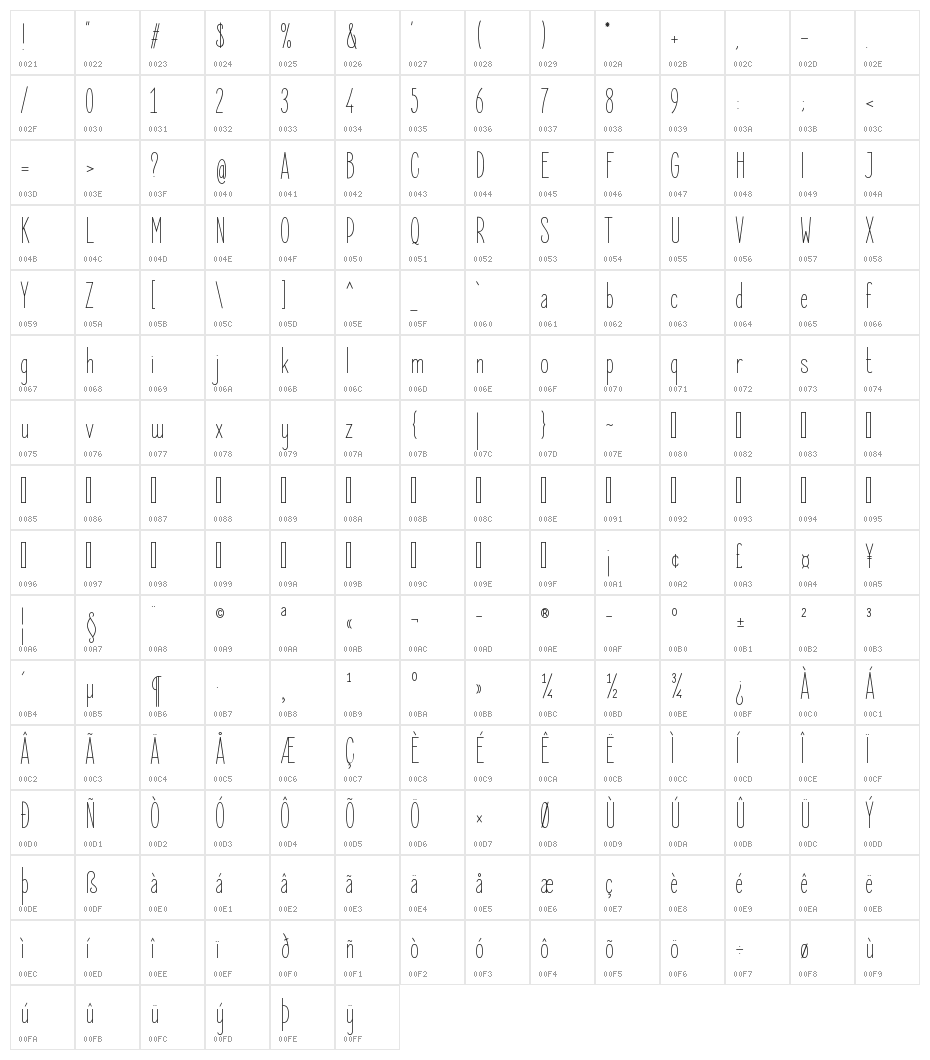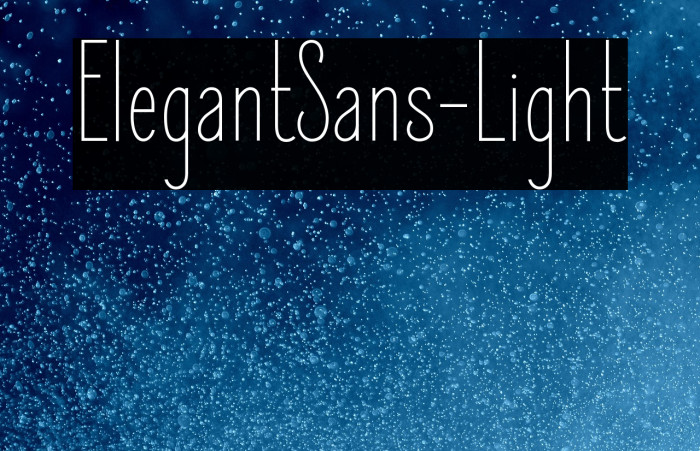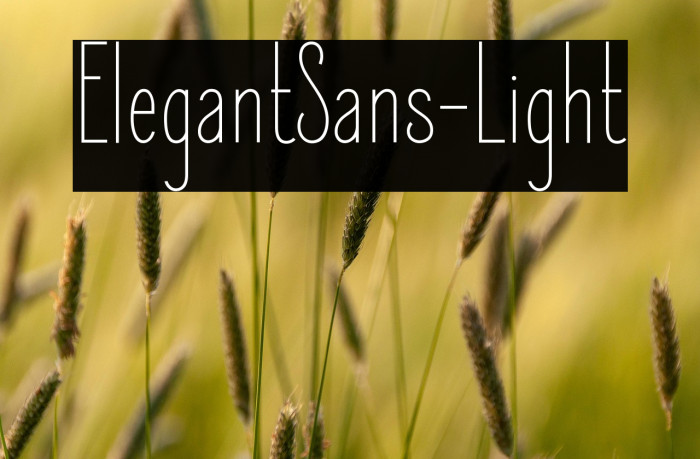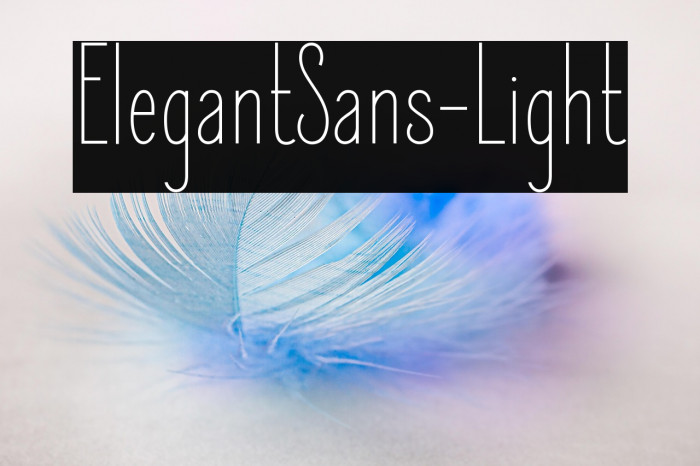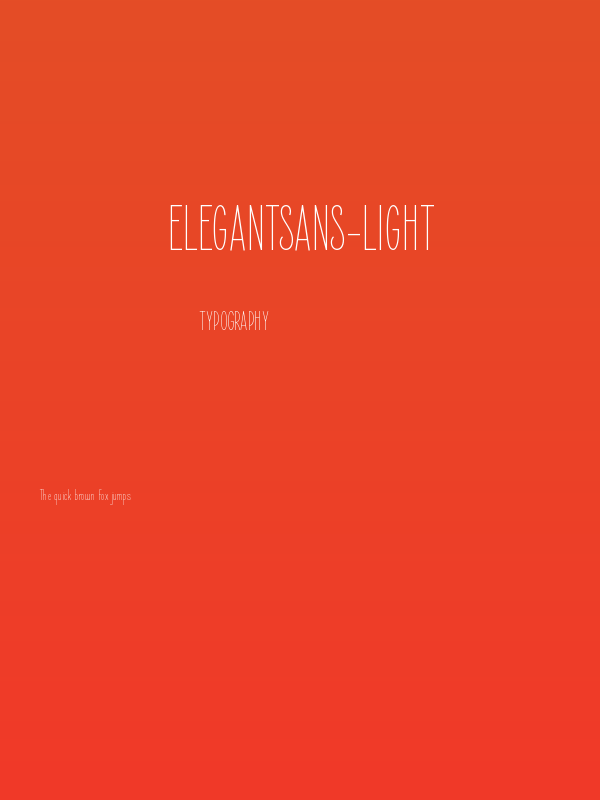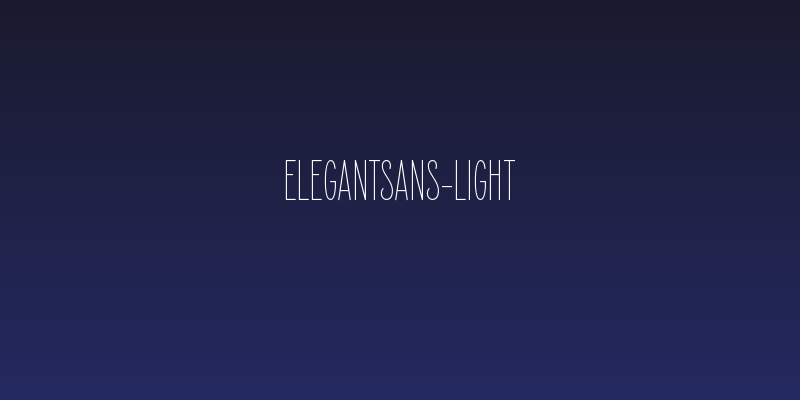
ElegantSans-Light Font
ElegantSans-Light Description
This font features a clean and elegant design with a light weight, making it ideal for modern and minimalist projects. The characters are tall and narrow, contributing to a sleek and sophisticated appearance. The uppercase and lowercase letters maintain a consistent style, with smooth curves and straight lines that enhance readability. The numerals and special characters are designed to complement the alphabet, ensuring a cohesive look across all text. The font's simplicity and clarity make it versatile for various applications, from digital to print media.